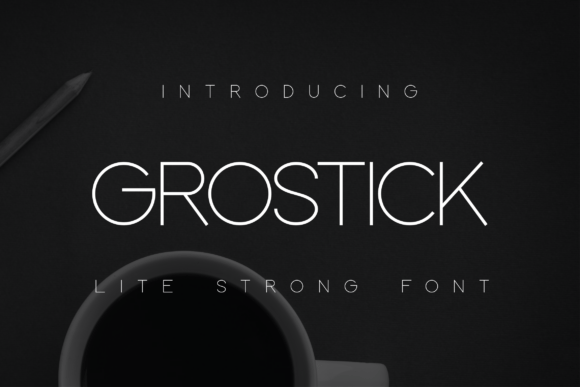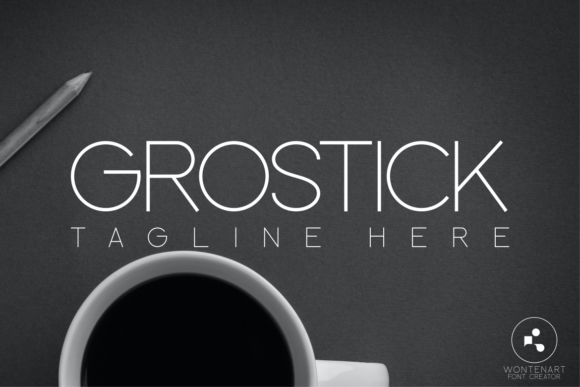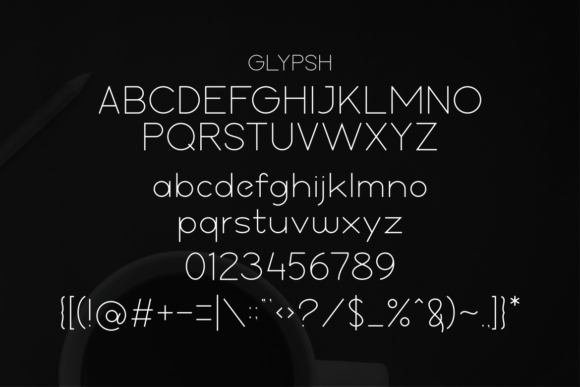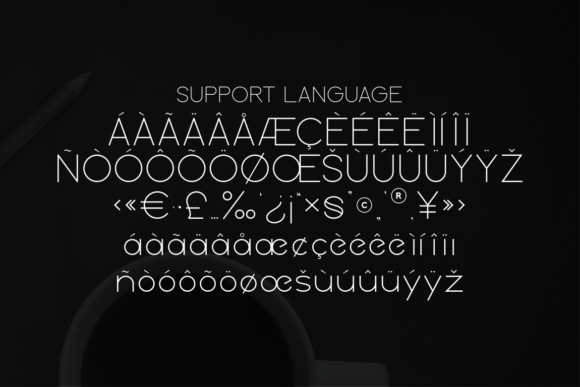
Grostick Font: A Modern Minimalist Sans Serif for Logo Design
About the Grostick Font
We are excited to introduce Grostick Font, a must-have typeface for any serious designer. Unveiling Grostick, an elegantly crafted geometric sans serif font that radiates modern simplicity combined with a robust urban charisma. Designed with a striking equilibrium of proportions, Grostick gleams with smooth curves and razor-sharp edges—making it a perfect choice for crafting iconic branding, logos, interactive web designs, advanced tech interfaces, or sophisticated editorial layouts. Its minimalist approach amplifies your message’s impact, ensuring it stands out with unambiguous clarity and formidable conviction. Regardless of your chosen platform, be it digital or print, Grostick bestows an air of sleek professionalism coupled with an innate sense of effortless style.
Grostick Font Usage Examples
Grostick Font Example